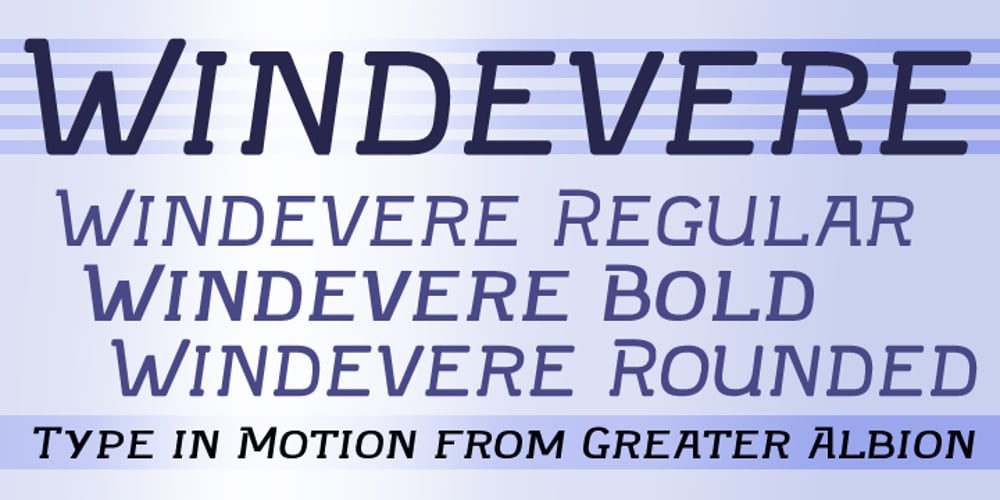
Windevere
Windevere font
Windevere Font Family was designed by Paul James Lloyd and published by Greater Albion Typefounders. Windevere contains 3 styles and family package options. Windevere is a family of display faces designed for easily readible headings and titles that convey a sense of speed and motion. The family includes three faces: Windevere Regular, Windevere Bold and Windevere Rounded.